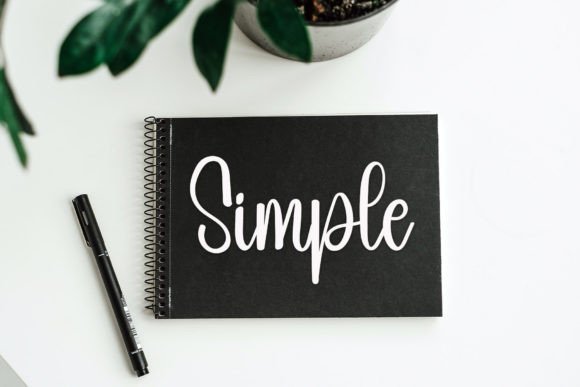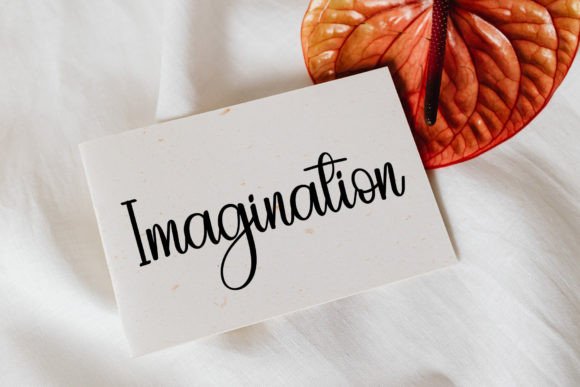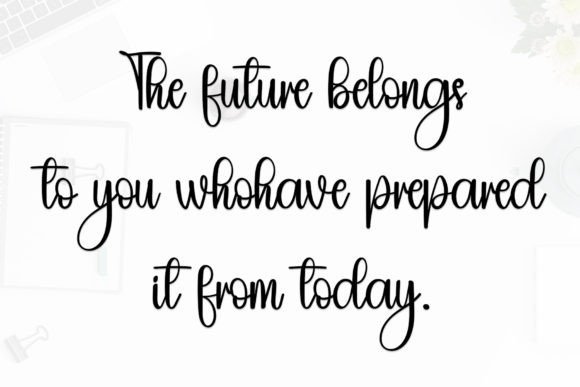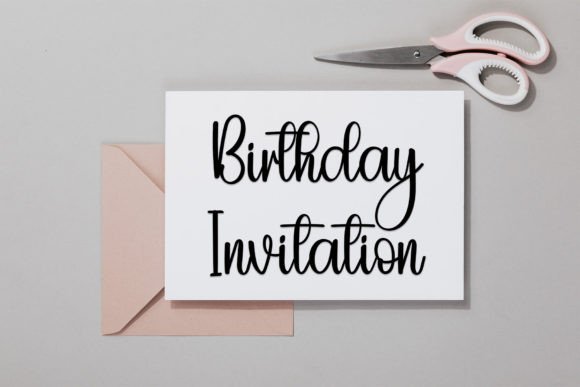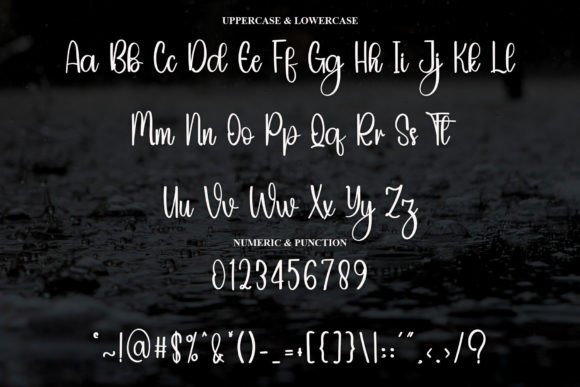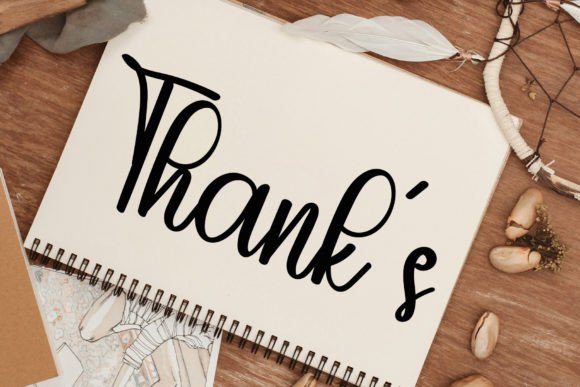
The Perfect Font for Your Holiday Cheer
It’s that time of the year again when you want to make your holiday cards, gift tags, and social media posts stand out from the crowd. You’re browsing through font options, and your creative mind is racing with ideas. But, have you ever stumbled upon the perfect font that captures the essence of the season?
Enter Holiday Font, a delightful handwritten font that combines elegance with a touch of playfulness. This font is designed to help you create unique and eye-catching designs for your holiday projects. Whether you’re a professional designer or a crafty DIY enthusiast, Holiday Font is the perfect tool to bring your ideas to life.
For designers, Holiday Font offers a valuable asset – a versatile and stylish font that can be used in a variety of projects, from social media graphics to calligraphy scripts. With Holiday Font, you can add a personal touch to your designs and make them truly special.
Holiday Font Key Features
- Unique Characteristics: The font features a festive, playful, and elegant design, making it perfect for holiday-themed designs, invitations, and advertisements.
- Kerning and Ligatures: The font includes advanced kerning and ligature pairs, ensuring smooth text rendering and a professional appearance.
Designer Review: Holiday Font
Overall, I think Holiday Font has some great qualities that make it a solid choice for festive designs, but it’s not without its limitations. ✨
- The playful, cursive script makes it perfect for creating cheerful, hand-written style text.
- The font includes a variety of characters and glyphs that are specifically designed for holiday-themed content, like ornaments, snowflakes, and even festive animals.
- The font is highly customizable, allowing users to adjust the color, size, and spacing to fit their design needs.
- The font may not be as sophisticated or elegant as other script fonts on the market.
- The character set is limited, and some users may find that it doesn’t include all the special characters they need.
- The font may not be as versatile, and users may find themselves stuck using it primarily for holiday-themed content.
Overall, I think Holiday Font is a great choice for designers who need a fun, festive font for holiday projects. While it may not be the most sophisticated or versatile font out there, it’s a solid choice for those who want to add a playful touch to their designs.
The Holiday Font is commonly used for:
- Christmas and New Year’s Eve invitations and decorations.
- Summer and winter-themed graphics and posters.
- Thanksgiving and Halloween party invitations and decorations.